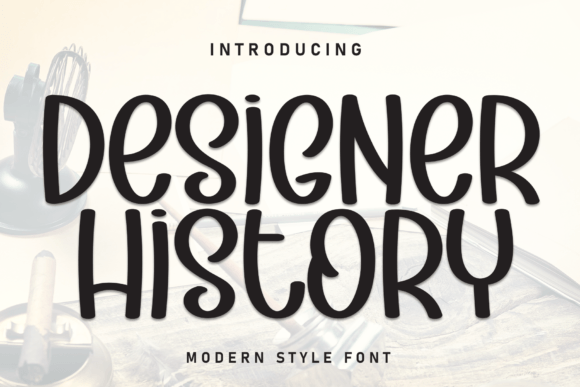
Designer History Font: A Sweet and Friendly Handwritten Display Font
When it comes to creating visually appealing designs, typography plays a crucial role. A well-chosen font can elevate your design and convey the right tone and personality. If you’re looking for a font that is both sweet and friendly, look no further than Designer History Font. In this article, we’ll explore the features and benefits of Designer History Font, and how it can be used to add a fun touch to your designs.
What is Designer History Font?
Designer History Font is a handwritten display font that is characterized by its cute and fun style. It is an ideal choice for designs that require a personal and playful touch. The font is designed to be highly legible and versatile, making it suitable for a wide range of applications, from wedding invitations and cards to posters and social media graphics.
Key Features of Designer History Font
- Handwritten style: Designer History Font has a unique handwritten style that gives it a personal and friendly feel.
- Cute and fun: The font is designed to be visually appealing and engaging, making it perfect for designs that require a playful touch.
- Highly legible: Despite its playful style, Designer History Font is highly legible, even at small sizes.
- Versatile: The font is suitable for a wide range of applications, from digital designs to print materials.
Use Cases for Designer History Font
Designer History Font is a versatile font that can be used in a variety of contexts. Here are some use cases where the font excels:
- Wedding invitations: The font’s sweet and friendly style makes it perfect for wedding invitations, adding a touch of romance and whimsy to the design.
- Cards and stationery: Designer History Font is ideal for designing cards, stationery, and other paper goods that require a personal touch.
- Social media graphics: The font’s playful style makes it well-suited for social media graphics, such as Facebook posts, Instagram stories, and Twitter headers.
- Posters and flyers: Designer History Font can be used to create eye-catching posters and flyers that grab attention and convey a message.
Benefits of Using Designer History Font
There are several benefits to using Designer History Font in your designs:
- Unique style: The font’s handwritten style sets it apart from more traditional fonts, adding a touch of personality to your designs.
- Easy to read: Despite its playful style, Designer History Font is highly legible, making it easy to read and understand.
- Customizable: The font can be customized to fit your design needs, allowing you to adjust the size, color, and style to suit your brand.
Tips for Using Designer History Font
Here are some tips for using Designer History Font effectively in your designs:
- Use it sparingly: While Designer History Font is a beautiful font, it can be overwhelming if used excessively. Use it sparingly to add a touch of personality to your design.
- Pair it with other fonts: Designer History Font can be paired with other fonts to create a unique and visually appealing design.
- Adjust the size and color: Experiment with different sizes and colors to find the perfect combination for your design.
- Use it consistently: Use Designer History Font consistently throughout your design to create a cohesive look and feel.
Designer History Font is a sweet and friendly handwritten display font that is ideal for adding a fun touch to your designs. With its cute and playful style, highly legible design, and versatility, it’s perfect for a wide range of applications, from wedding invitations and cards to social media graphics and posters. By following the tips outlined in this article, you can use Designer History Font effectively in your designs and create visually appealing and engaging graphics that capture your audience’s attention.
- What is Designer History Font?: Designer History Font is a handwritten display font characterized by its cute and fun style.
- What is Designer History Font used for?: Designer History Font is ideal for designs that require a personal and playful touch, such as wedding invitations, cards, social media graphics, and posters.
- Is Designer History Font easy to read?: Yes, Designer History Font is highly legible, making it easy to read and understand.
- Can I customize Designer History Font?: Yes, Designer History Font can be customized to fit your design needs, allowing you to adjust the size, color, and style to suit your brand.